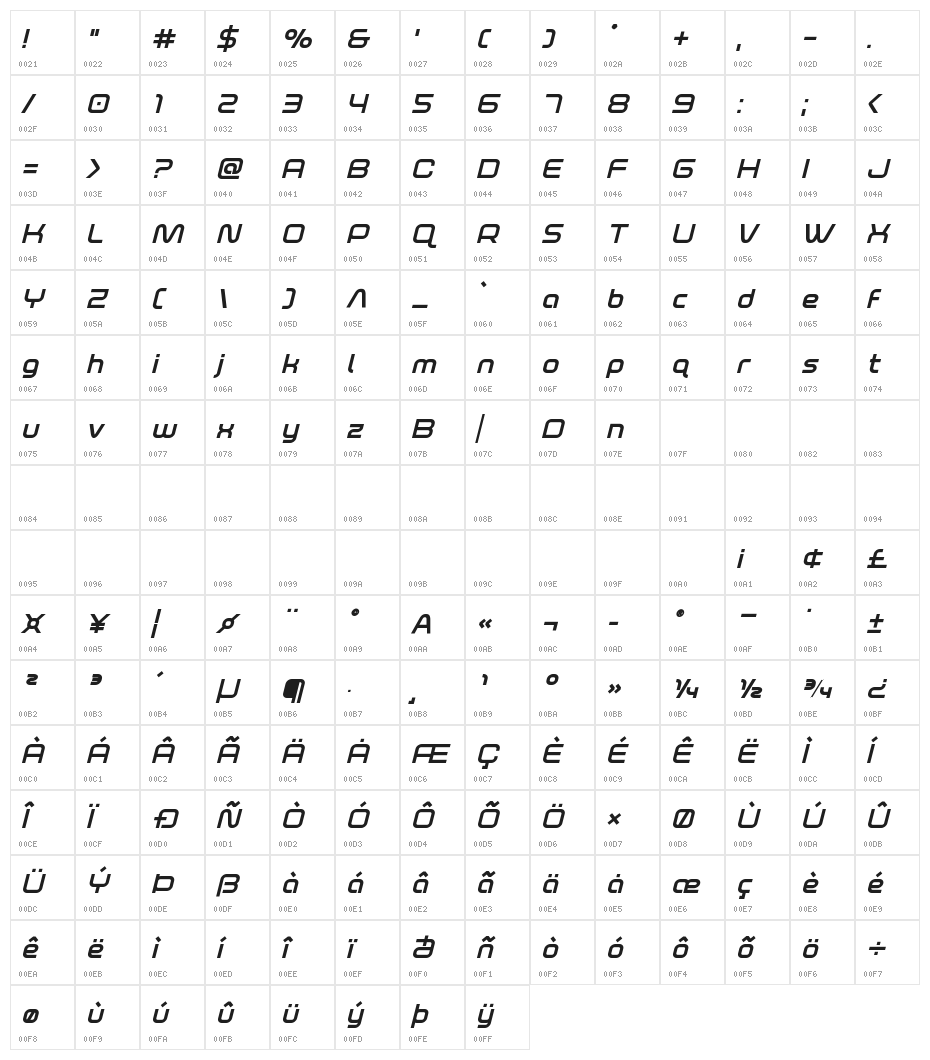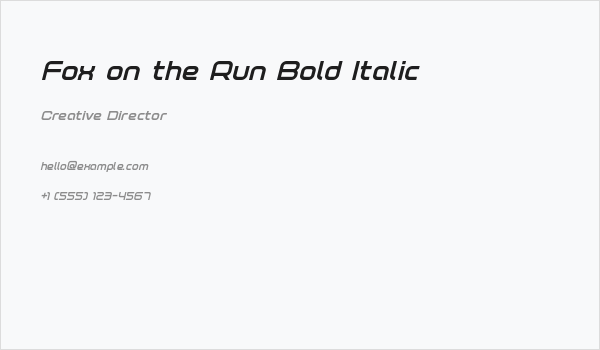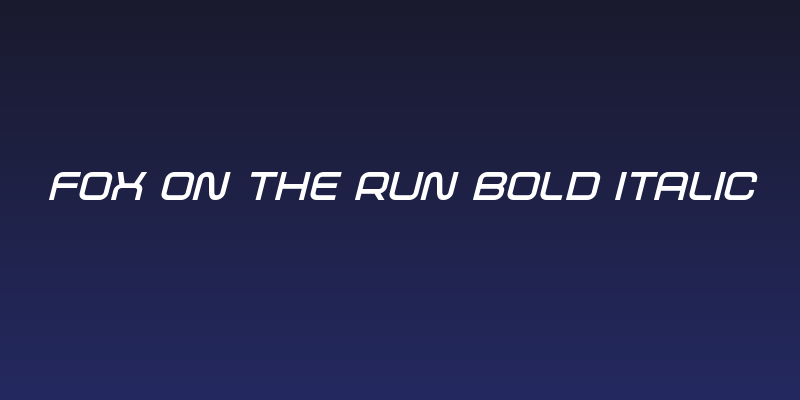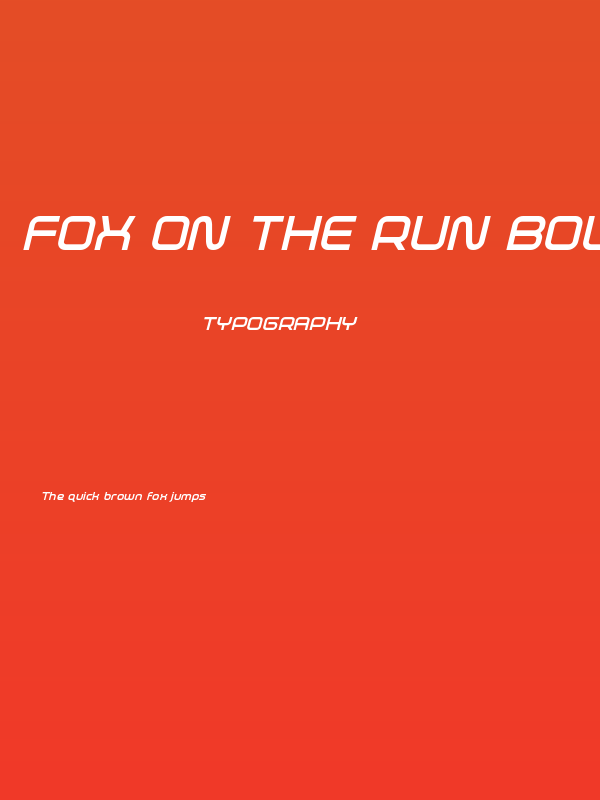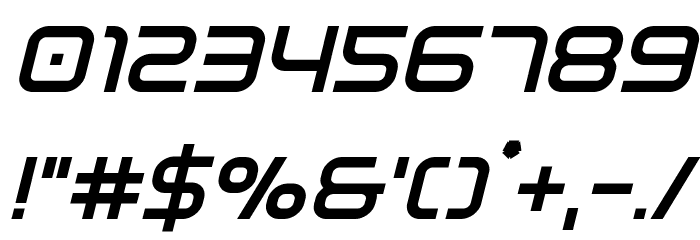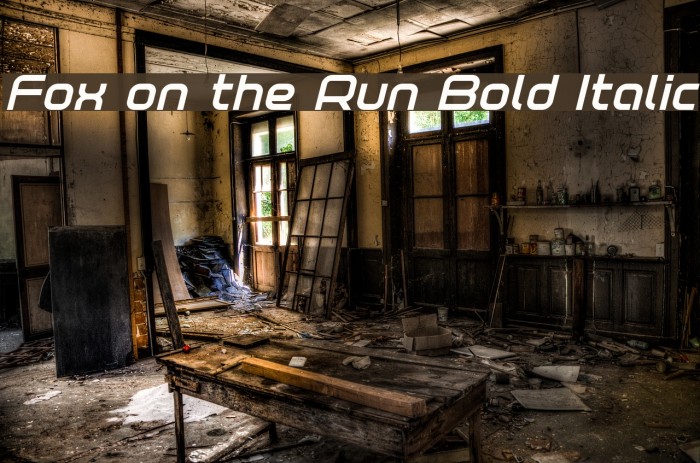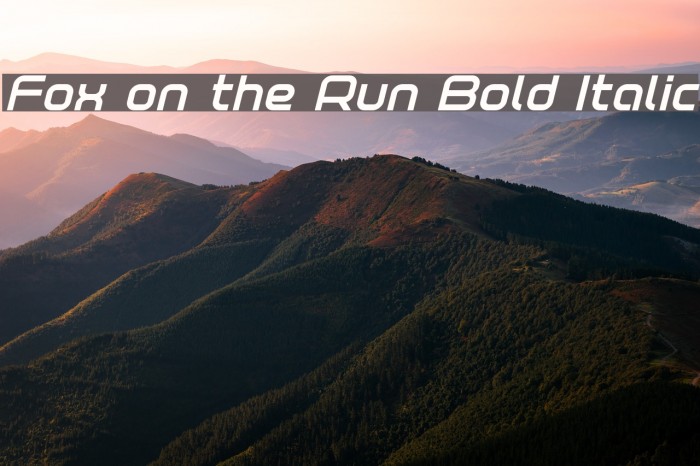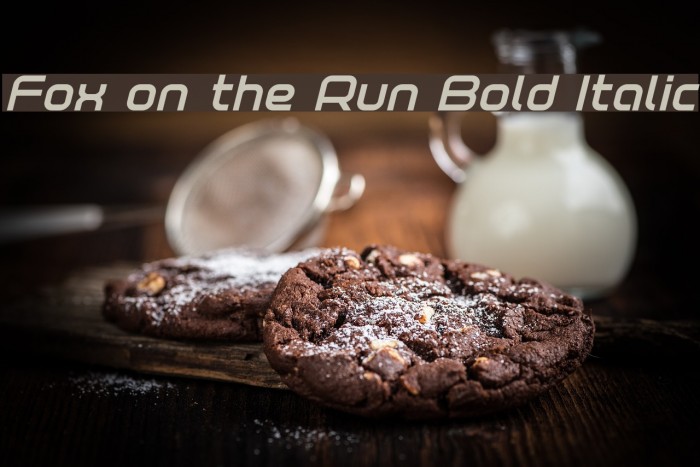
Fox on the Run Bold Italic Font
Fox on the Run Bold Italic Description
This font features a dynamic and modern design with a bold and italicized style. The characters are slightly slanted, giving a sense of movement and energy. The strokes are consistent in weight, providing a uniform appearance across all characters. The rounded edges and smooth curves contribute to a sleek and contemporary look. It maintains a clean and professional aesthetic, making it suitable for various applications. The numerals and special characters are designed to match the overall style, ensuring visual harmony throughout.
| Proposed Projects | Ideal for sports branding, tech company logos, dynamic posters, and modern web design. |